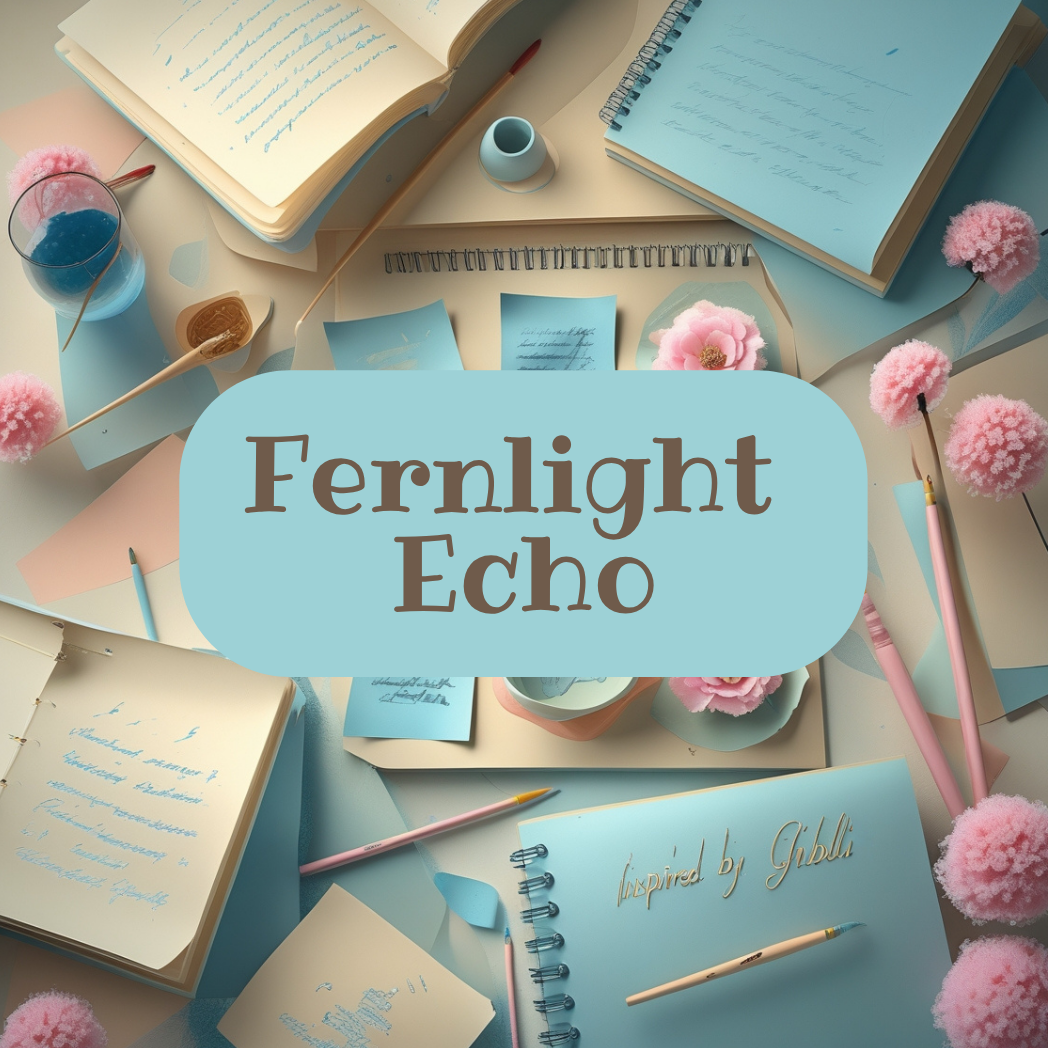
Fernlight Echo
Fernlight Echo combines transparency and subtle dynamics. Each letter feels like it’s woven from leaves swaying in the breeze. Perfect for packaging, chapter titles, or refined decorative headers. It includes elements with curved lines and soft weight transitions. It brings calm and balance—no harsh angles or clutter. Suitable for both light and dark themes. Helps maintain a harmonious structure without compromising legibility. Leaves a soft impression—like a breath of nature at dawn.